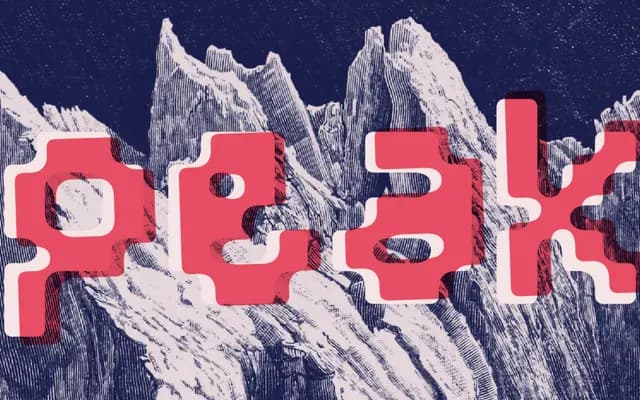
Ice Tray
Tofu Type · Reese Lee · 2023
A grid-aligned pixel display face by Reese Lee, drawing its construction from the ice bridges formed in ice cube trays.
Built on a strict grid with diagonal emphasis and connected letterforms, Ice Tray takes its formal logic from the frozen water bridges of ice cube trays. The three-style family is designed purely for display use, with deliberately unorthodox letterforms kept in check by rigid grid alignment. A generous set of stylistic sets covers alternate single and double storey letters, art deco variants and simplified forms, giving the face considerable flexibility within its eccentric framework.
Classified by the foundry as Display and pixel; built on a rigid grid with diagonal emphasis and connected construction, placing it firmly in the geometric pixel-display category.